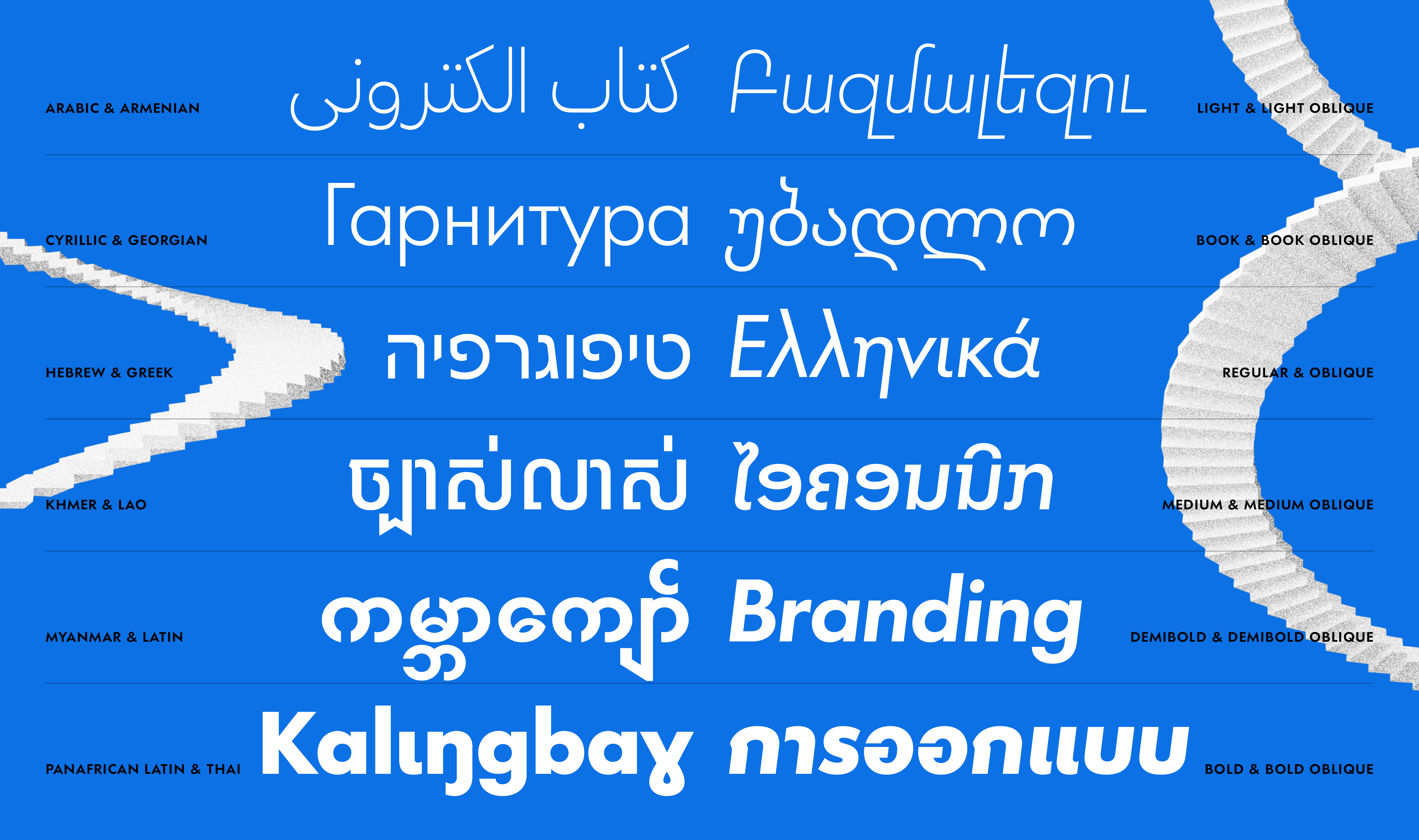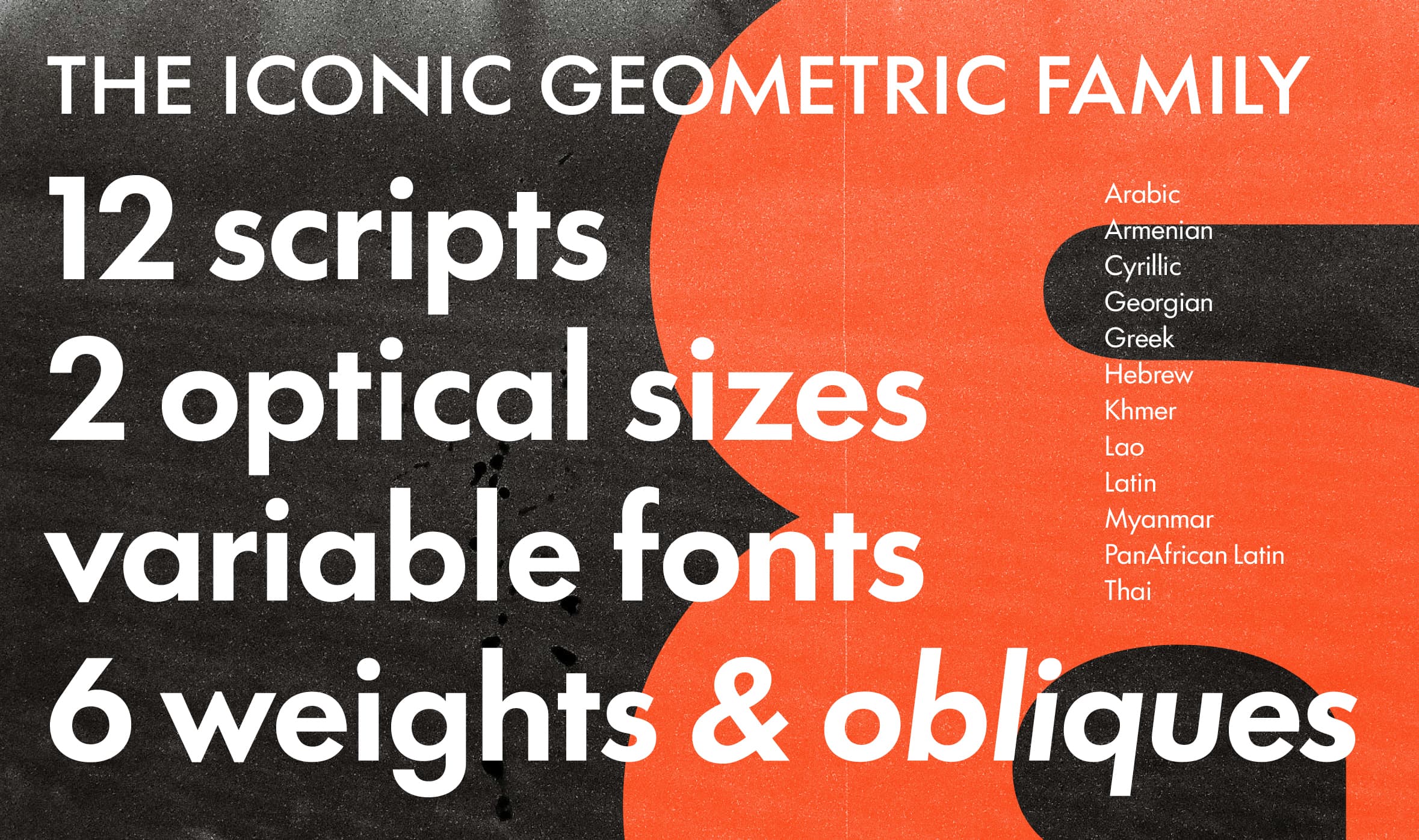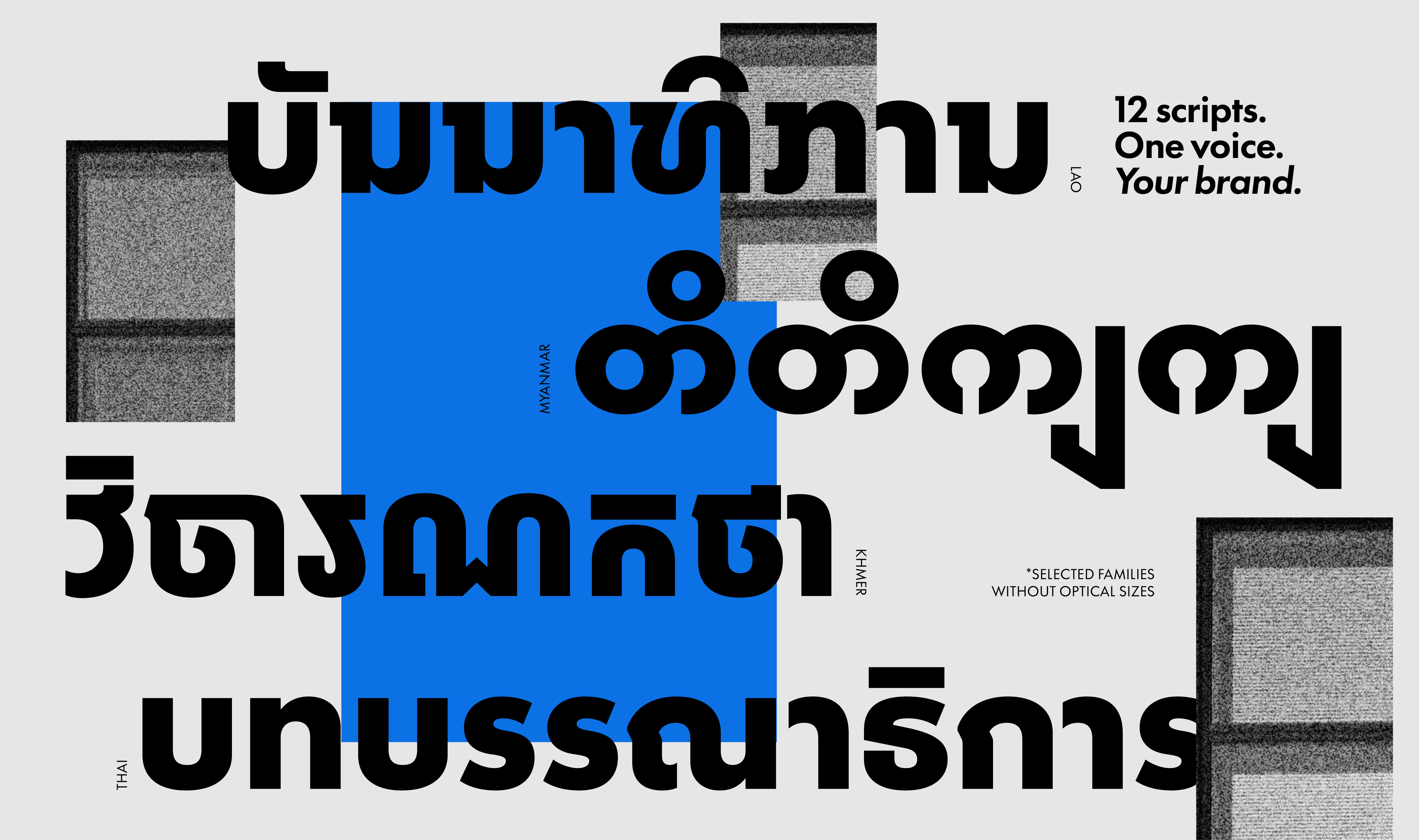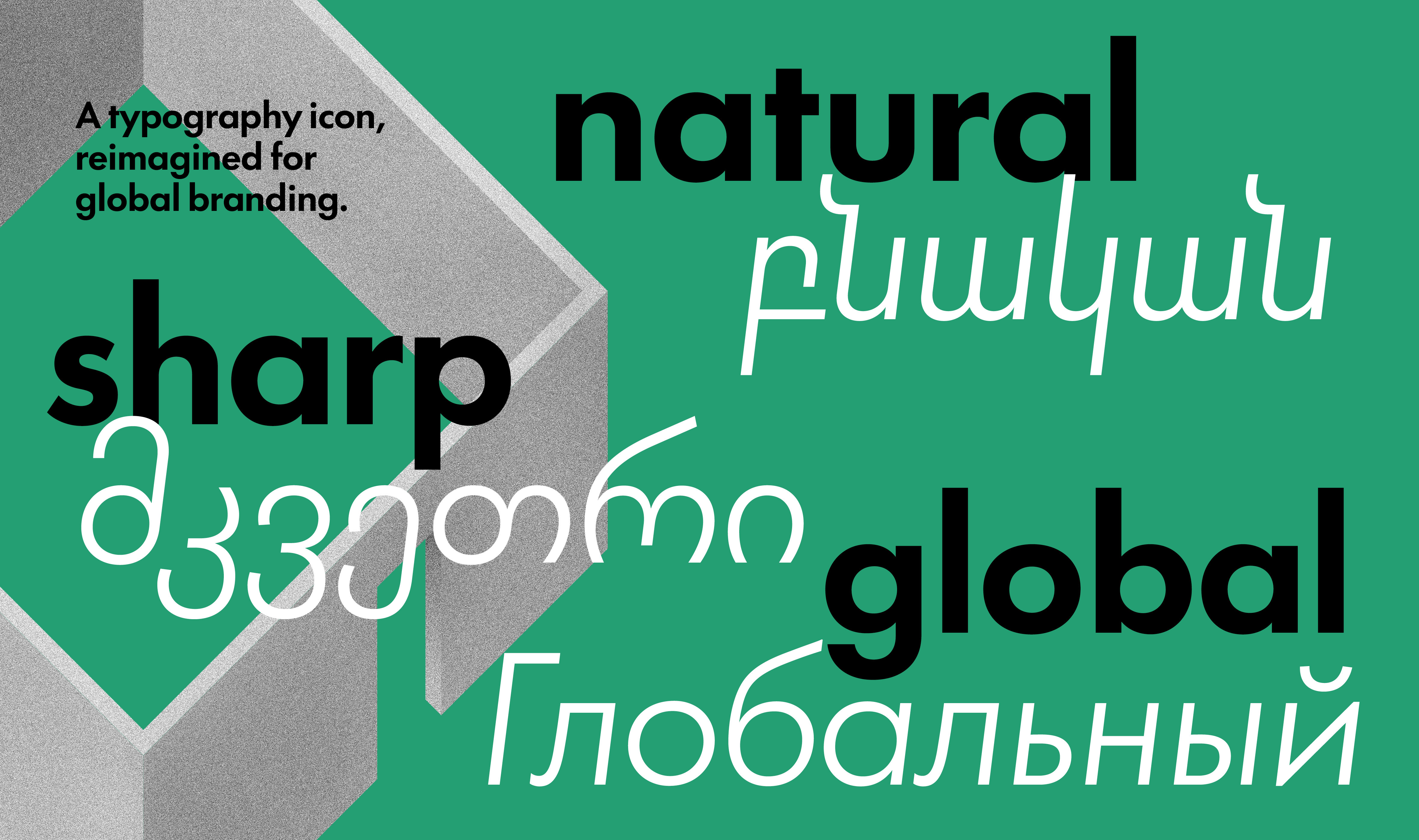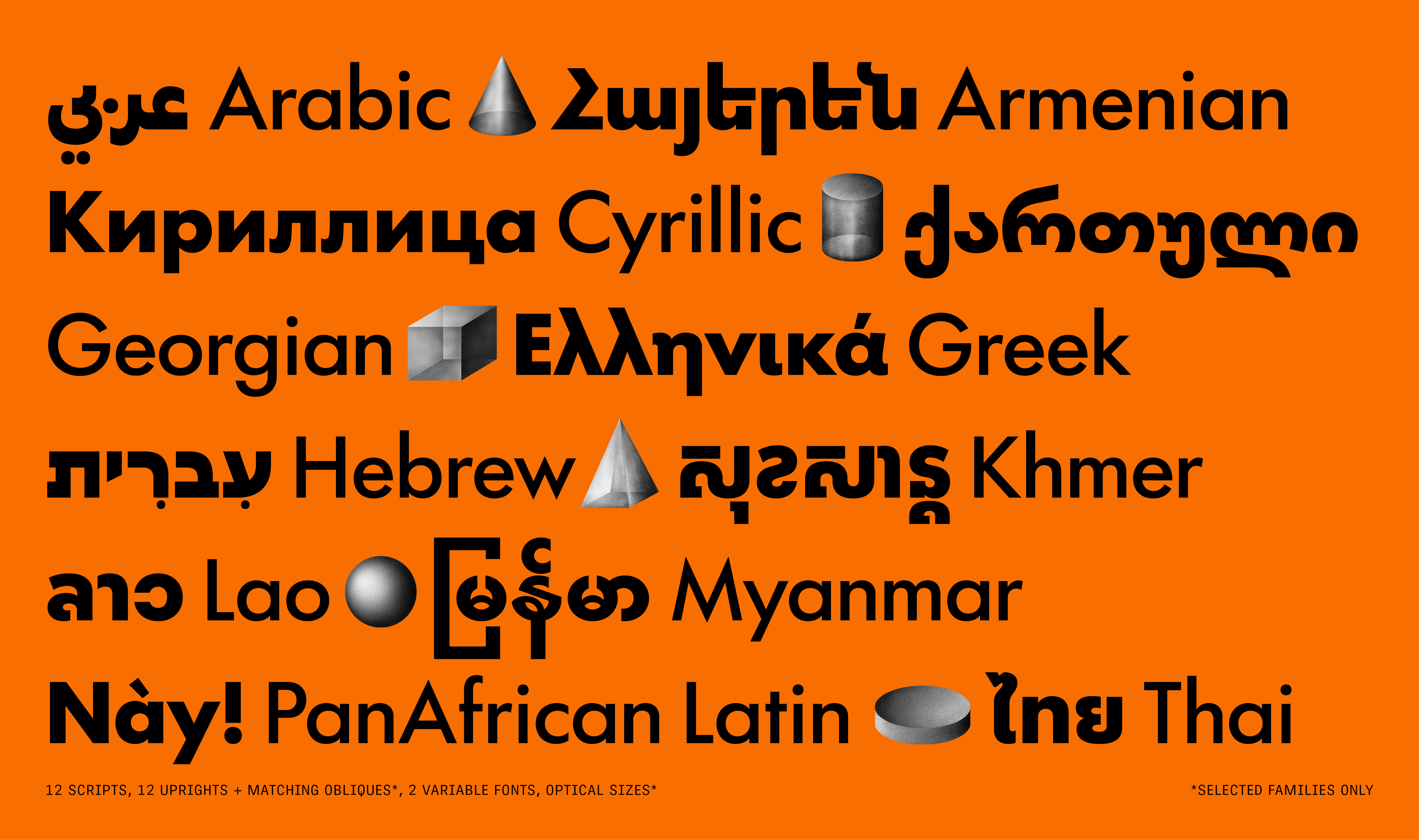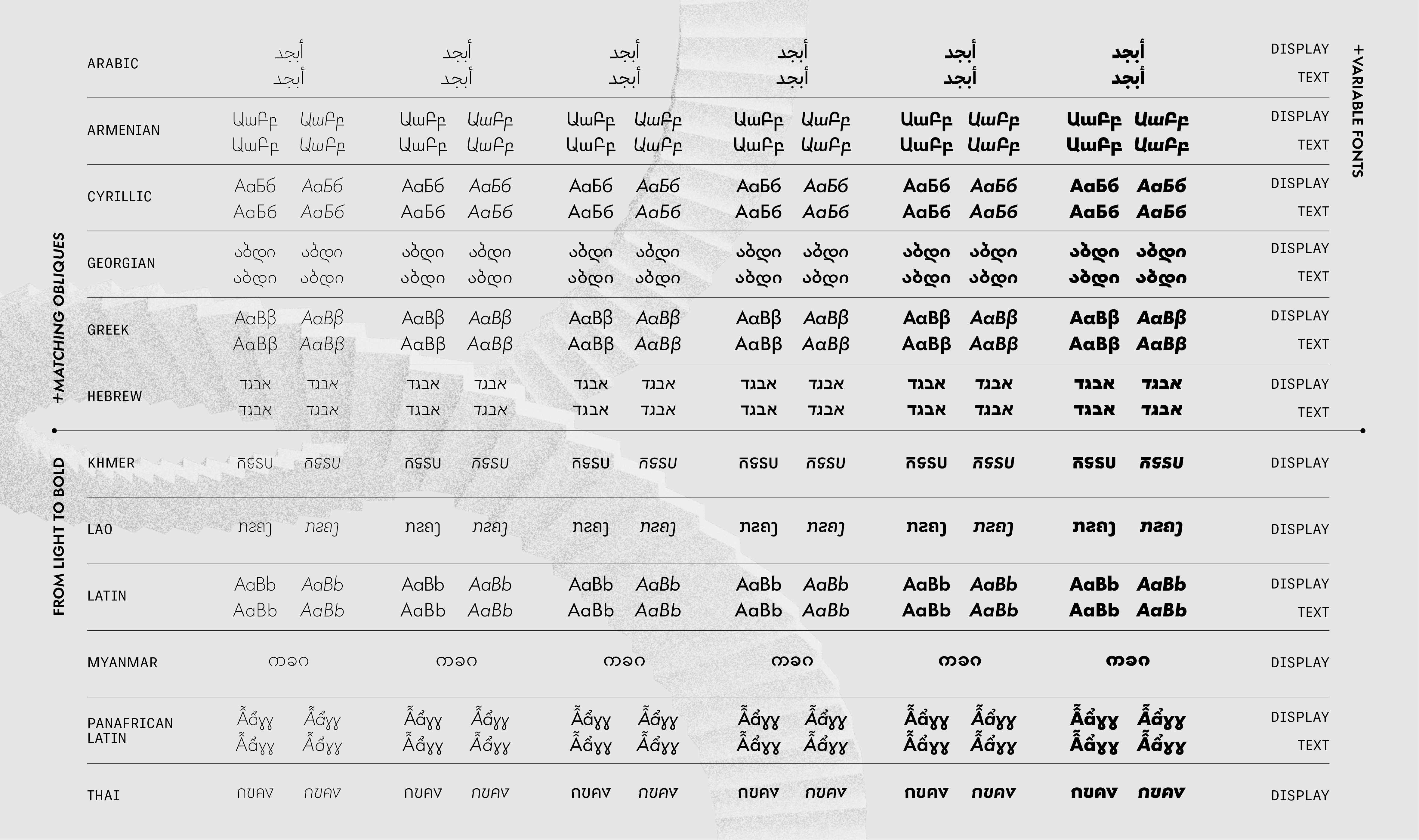
Futura 100
This type family is an expansion of a massively popular geometric sans in 12 scripts for multinational branding, digital devices, and modern publishing demands.
There are two basic reasons for a new version of this geometric sans. The first is language support. Until now only a few scripts have ever been created, but TypeTogether has released it in 12 scripts: Armenian, Cyrillic, Georgian, Greek, Hebrew, Khmer, Lao, Latin, PanAfrican Latin, Thai (these ten with obliques), Arabic, and Myanmar.
The second major reason for a new design is to make it more accurate, more powerful, and more aligned with digital publishing needs. The families come in six weights (once of them never previously digitized) along with matching obliques and optical size variations. Typographic niceties include small caps. geometric alternates, intelligent fractions and much more.